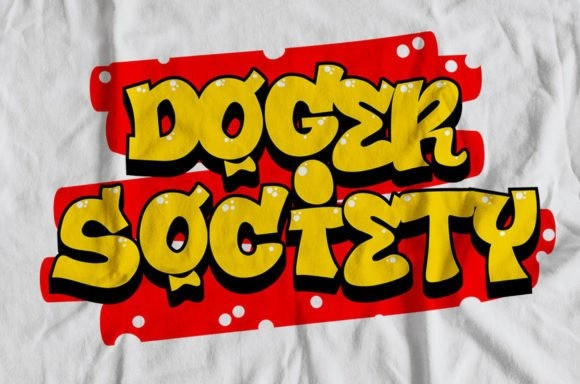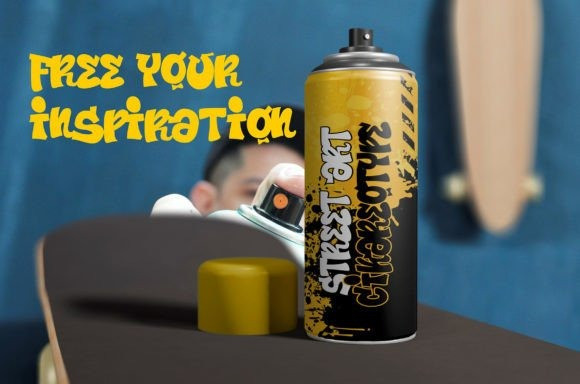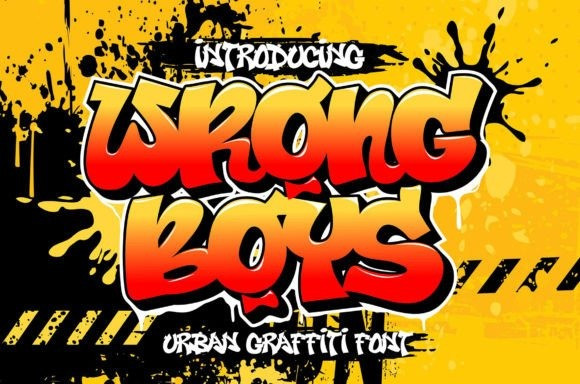
Wrong Boys Font
Wrong Boys Font is a spectacular display font with a fatty and thick graffiti style. It will elevate a wide range of design projects to the highest level, be it branding, headings, wedding designs, invitations, signatures, logotypes, wall art illustrations, apparel, labels, and much more!